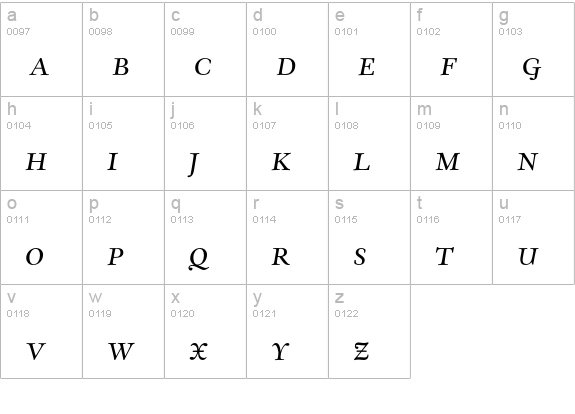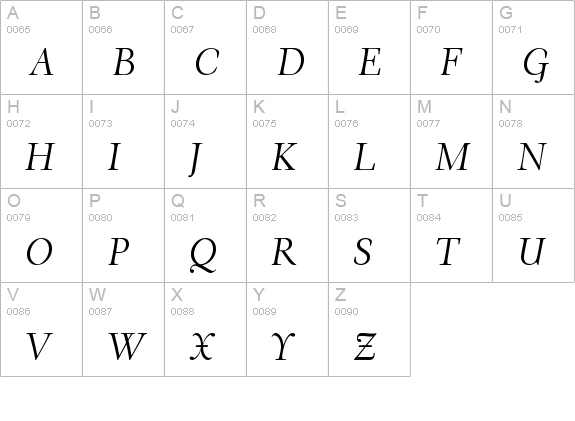
EldoradoText-LightItalicSC is a sophisticated and elegant font that exudes a sense of grace and refinement. Its delicate italic styling adds a touch of sophistication to any project, making it ideal for use in luxury branding, editorial designs, and formal invitations. The flowing curves and gentle slant of this typeface create a sense of movement and fluidity, enhancing the overall visual appeal of your text. This font is perfect for adding a touch of class to your designs, whether you're working on a wedding invitation, a high-end fashion magazine, or a prestigious event program. The subtle italicized form of EldoradoText-LightItalicSC brings a sense of elegance and sophistication to your text, making it stand out and capture the attention of your audience. Best of all, EldoradoText-LightItalicSC is available for free download at FontsMarket.com. This means you can elevate your designs with this exquisite font without breaking the bank. Don't miss out on the opportunity to enhance your projects with the timeless beauty of EldoradoText-LightItalicSC - download it today and see the difference it can make in your designs!